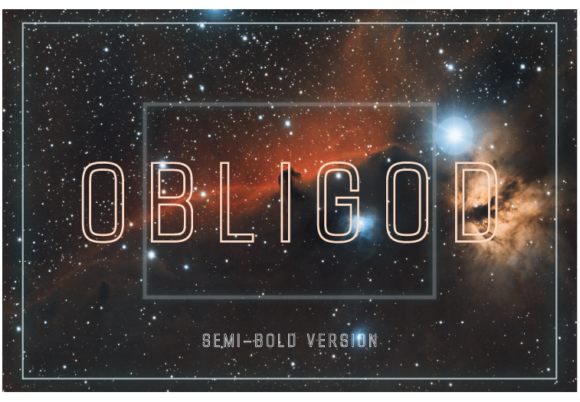
Prepare to be spellbound by Obligod Outline Semi-Bold Font, a masterpiece crafted by Nan Design. This captivating sans serif font is a harmonious fusion of classicism and modernity, ready to elevate your designs to extraordinary heights. With its strong and confident demeanor, Obligod Outline is an ideal choice for branding, packaging designs, and everything in between.
Step into a realm of limitless possibilities with Obligod Outline. Its elegant curves and refined lines exude an air of sophistication, making it the perfect choice for logos that demand attention. As a versatile performer, this font adapts effortlessly to a wide range of design projects, bringing a touch of charm to each one.
Unleash your creativity and let Obligod Outline guide you towards exceptional designs. Its timeless appeal ensures that your creations will stand the test of time, making an impact that resonates with your audience. Embrace the allure of Obligod Outline Semi-Bold Font and elevate your designs beyond the ordinary.